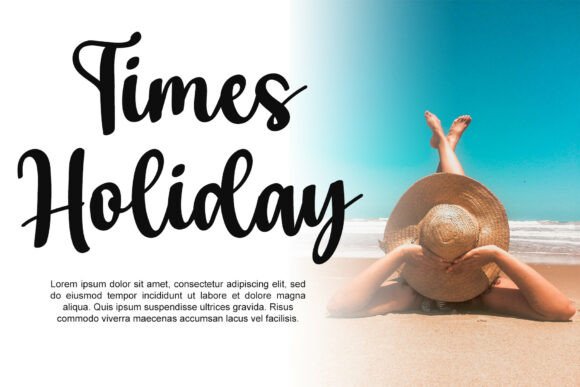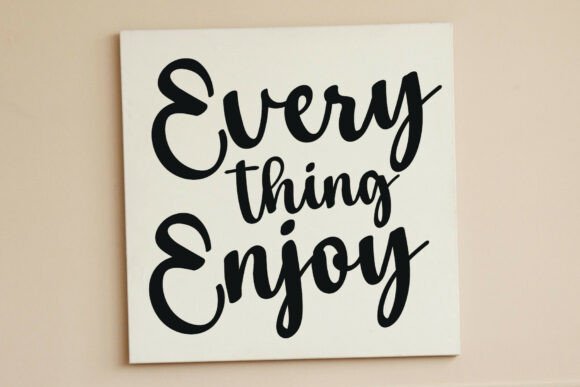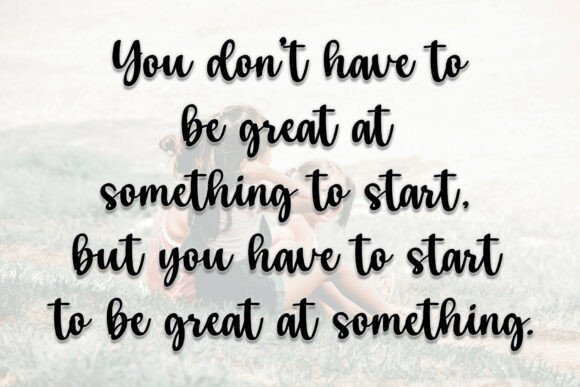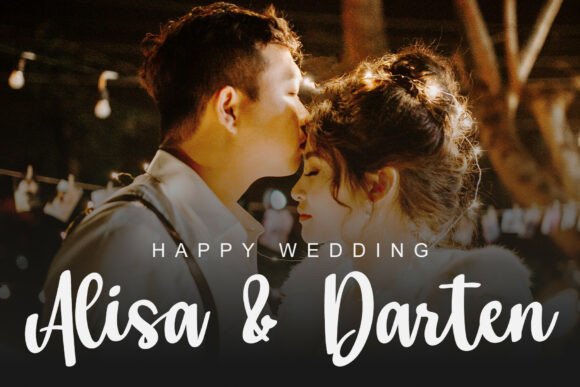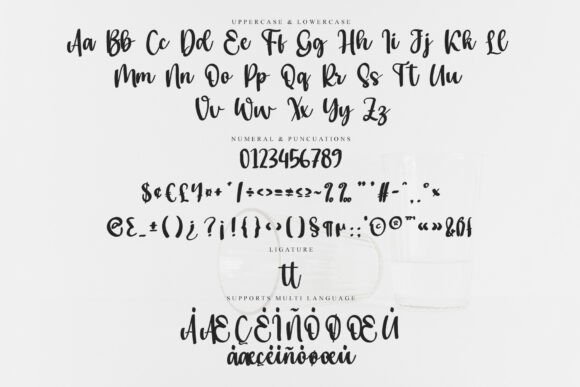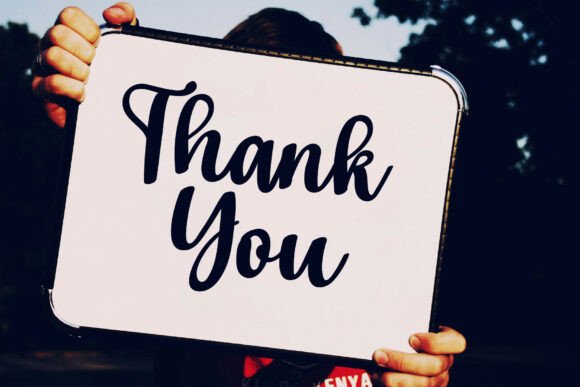
Auntie Beauty Font: Elevate Your Designs with Elegance and Charisma
In the world of typography, fonts play a crucial role in conveying messages, expressing emotions, and creating lasting impressions. For designers and crafters seeking a font that embodies strength, elegance, and charisma, Auntie Beauty Font is an exceptional choice. This stunning font is designed to captivate with its bold, fluid strokes and dynamic script style, making it perfect for a wide range of creative projects.
The Essence of Auntie Beauty Font
Auntie Beauty Font is a masterful blend of traditional handwritten calligraphy and modern assertiveness. Its bold, fluid strokes exude confidence and flair, while its elegant and refined appearance adds a touch of sophistication to any design. This font is meticulously crafted to deliver a sense of luxury, making it an ideal choice for designers and crafters who want to create striking logos, stylish headlines, or eye-catching branding elements.
Key Features of Auntie Beauty Font
- Bold and Fluid Strokes: The font’s bold, fluid strokes create a sense of movement and energy, adding a dynamic touch to any design.
- Dynamic Script Style: The font’s script style is both elegant and assertive, making it perfect for creating stylish and sophisticated designs.
- Elegant and Refined Appearance: Auntie Beauty Font boasts an elegant and refined appearance, making it suitable for a wide range of creative projects, from luxury branding to stylish stationery.
- Versatile and Adaptable: This font is versatile and adaptable, making it perfect for use in various design contexts, including logos, headlines, packaging, and more.
Uses of Auntie Beauty Font
Auntie Beauty Font is a versatile font that can be used in a variety of creative projects, including:
- Logo Design: Create a striking and memorable logo that exudes confidence and elegance.
- Headlines and Titles: Add a touch of sophistication to your headlines and titles with this stunning font.
- Branding and Packaging: Elevate your brand’s visual identity with a font that embodies luxury and refinement.
- Stationery and Invitations: Add a touch of elegance to your stationery and invitations with Auntie Beauty Font.
Why Choose Auntie Beauty Font?
With so many fonts available, why choose Auntie Beauty Font? Here are a few compelling reasons:
- Unique and Distinctive: Auntie Beauty Font is a unique and distinctive font that will set your designs apart from the crowd.
- High-Quality Design: This font is meticulously crafted to deliver exceptional quality and performance.
- Ease of Use: Auntie Beauty Font is easy to use and can be seamlessly integrated into your design workflow.
In conclusion, Auntie Beauty Font is an exceptional choice for designers and crafters seeking a font that embodies strength, elegance, and charisma. Its bold, fluid strokes and dynamic script style make it perfect for creating striking logos, stylish headlines, and eye-catching branding elements. With its versatility, adaptability, and high-quality design, Auntie Beauty Font is sure to elevate your designs and take your creative projects to the next level.